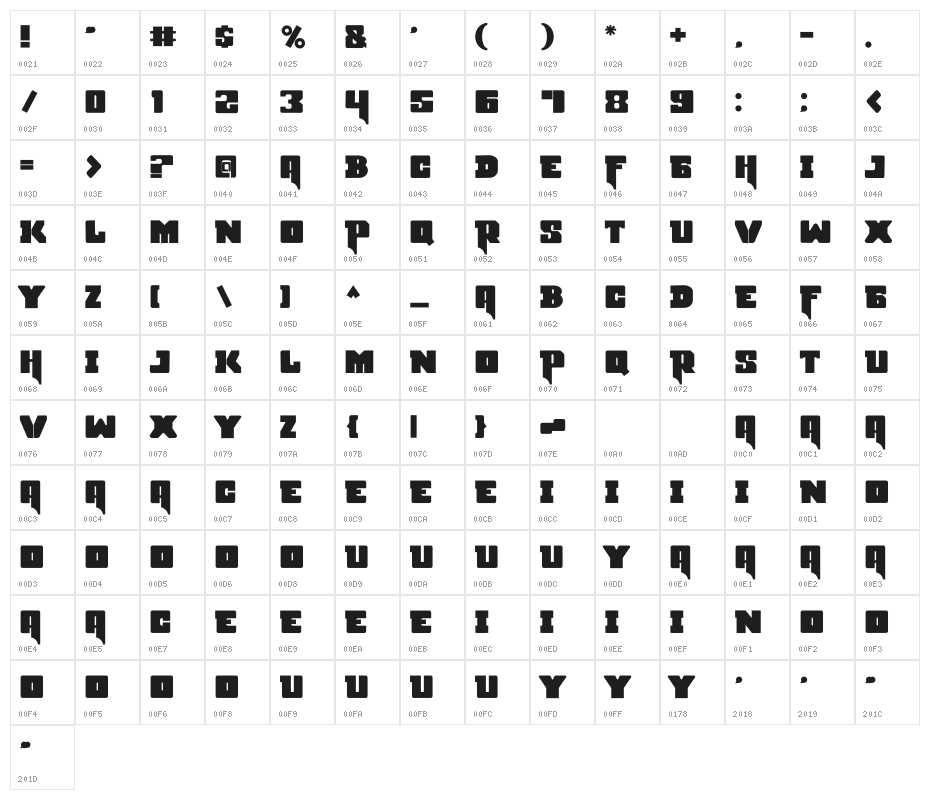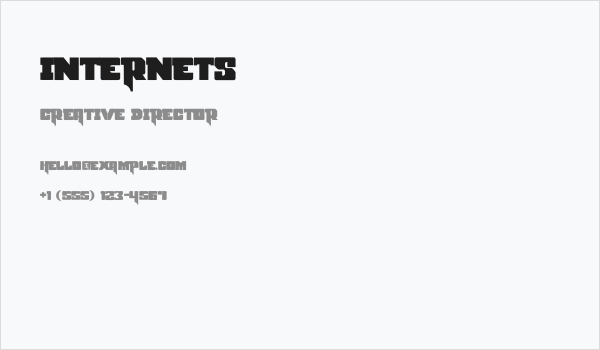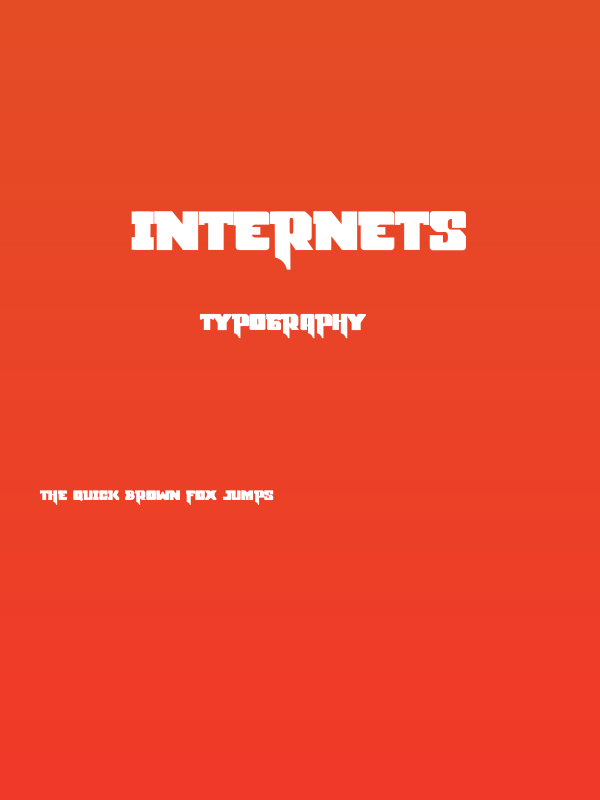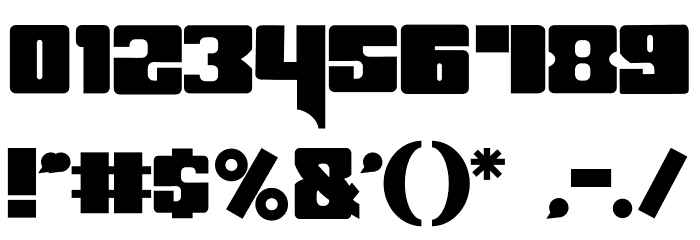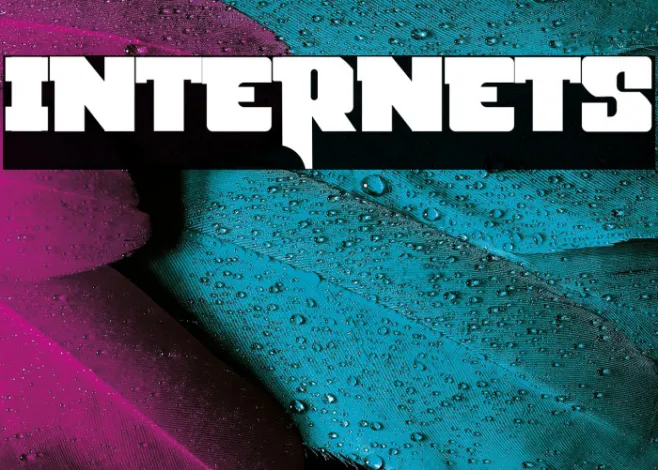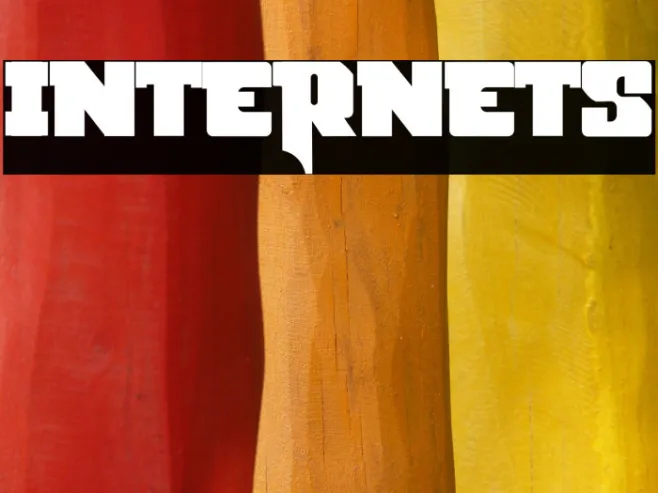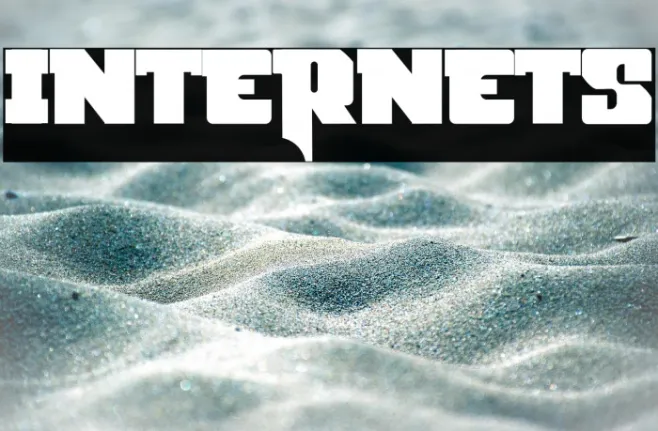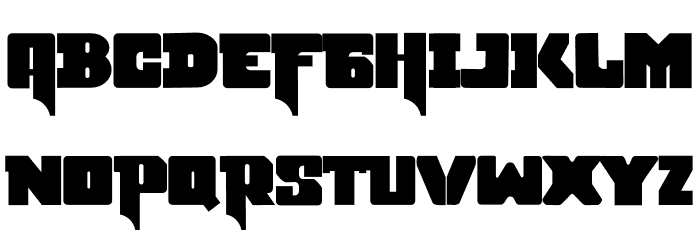
Internets Font
Internets Description
This font features a bold and striking design with a strong presence. The characters are blocky and geometric, with sharp angles and a consistent weight throughout. The uppercase and lowercase letters maintain a uniform height, giving the font a monospaced appearance. The numbers and special characters follow the same bold style, ensuring consistency across all glyphs. The font's design is reminiscent of industrial or futuristic themes, making it suitable for projects that require a modern and impactful look.